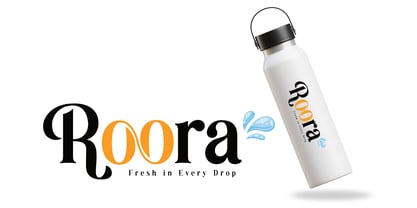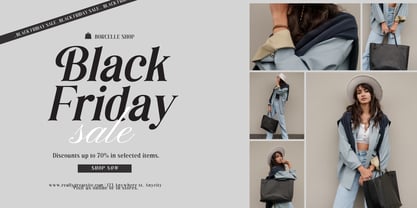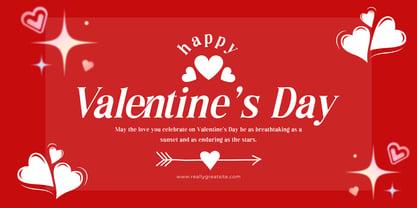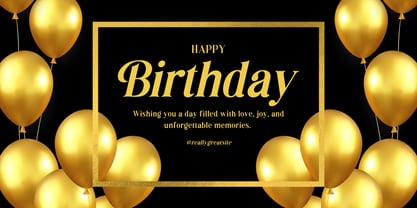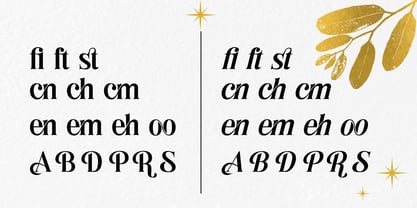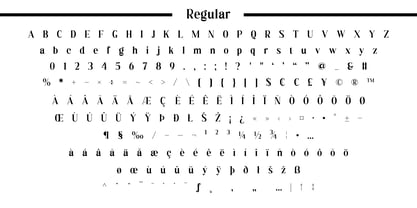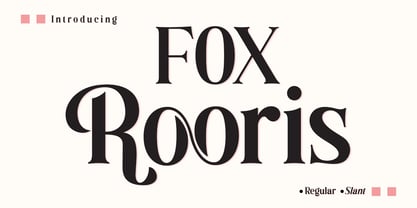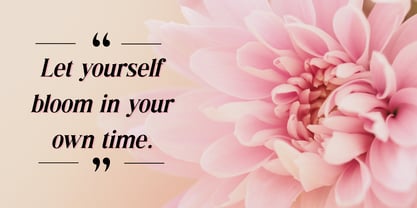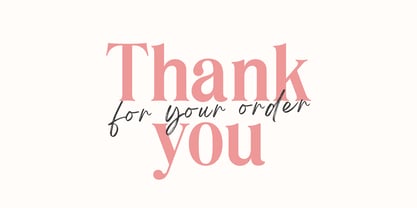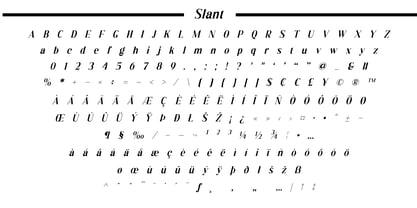
Fox Rooris
La familia tipográfica Fox Rooris fue diseñada por Rattana Rattanawan y publicada por Fox7. Fox Rooris contiene 2 estilos y opciones de paquete familiar. Más información sobre esta familia
Fox Rooris is a sophisticated and timeless serif font that blends classic elegance with a modern edge. Designed with beautiful curves and unique decorative swashes, this typeface is crafted to bring a touch of luxury and high-fashion aesthetics to your creative projects. Whether you are looking for a font for branding, editorial design, or social media, Fox Rooris offers a perfect balance of legibility and artistic flair. Its delicate strokes and bold presence make it stand out in both large headings and smaller body text. Best Used For: Branding & Logos: Create a memorable identity for fashion, beauty, or lifestyle brands. Editorial Design: Perfect for magazine layouts, mastheads, and book covers. Wedding Stationery: Elegant invitations, menus, and place cards. Social Media: Eye-catching quotes, Instagram posts, and Pinterest graphics. Packaging: Luxury product packaging that demands attention. Elevate your design game with Fox Rooris—where classic serif meets modern chic.